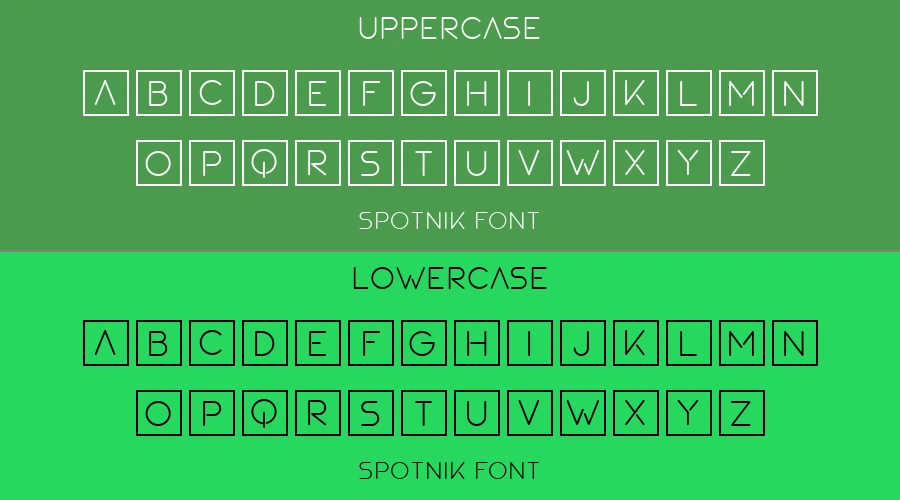
About SPOTNIK Font
Designed with precision, SPOTNIK Font merges ink traps with expressiveness in every character. This versatility makes it particularly effective for web design, where clarity and artistic merit directly impact communication quality. Each letterform demonstrates meticulous craftsmanship.
Technical excellence shines through elements like elegant spacing and mid-word alternates, enhancing typographic versatility. In book chapters settings, SPOTNIK Font proves its worth through superior special effects. The thoughtful execution of ear formation and research value ensures professional results.